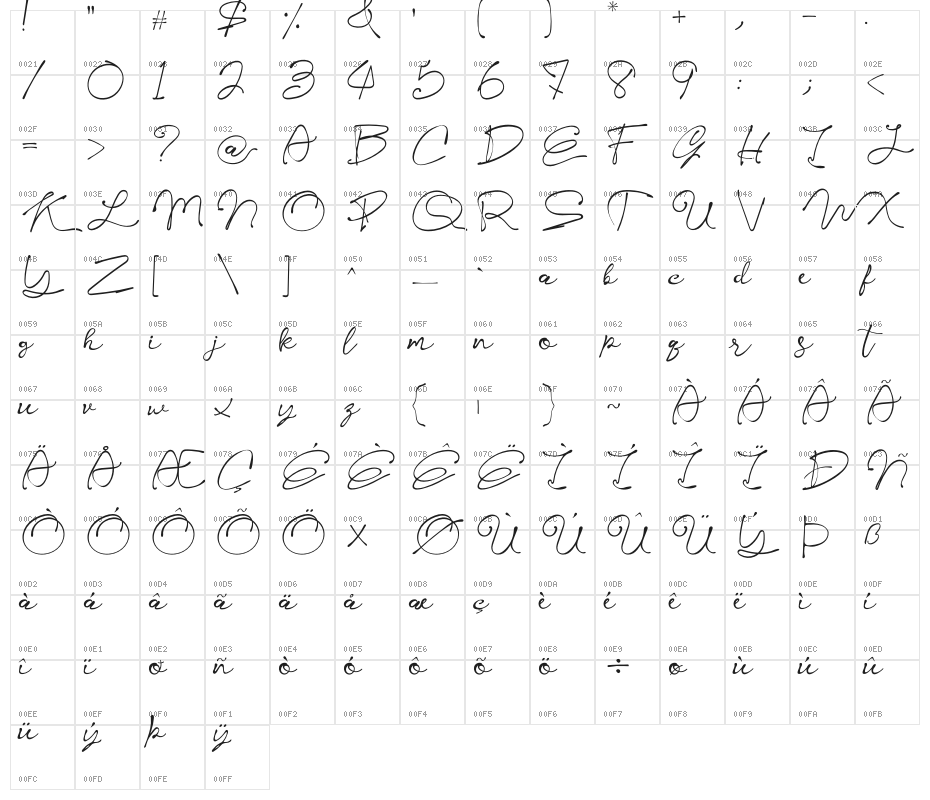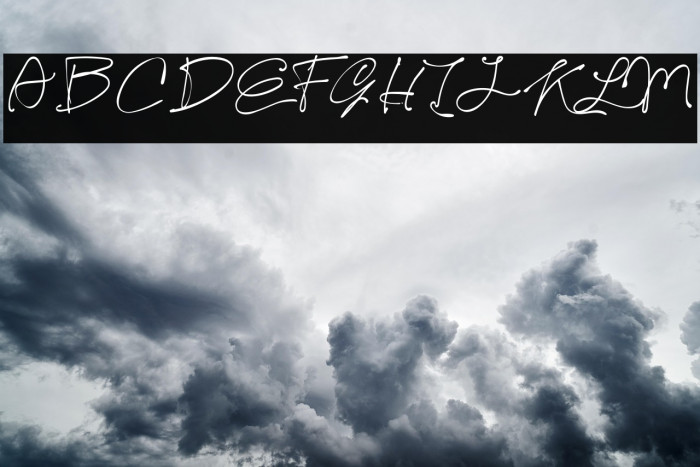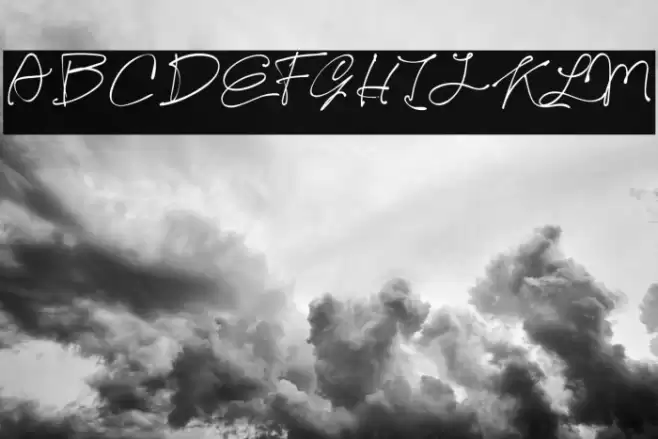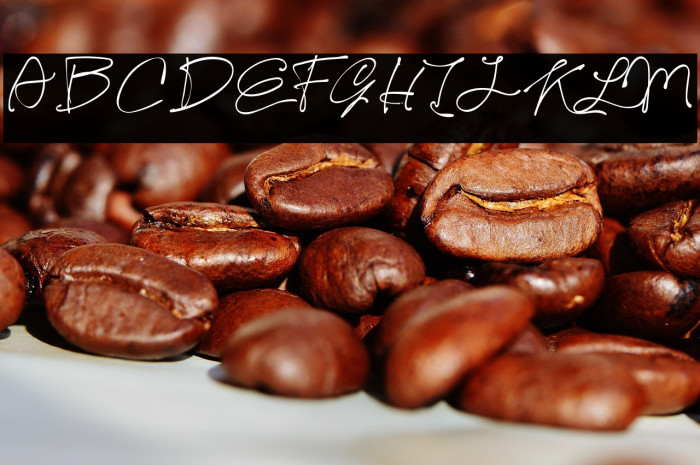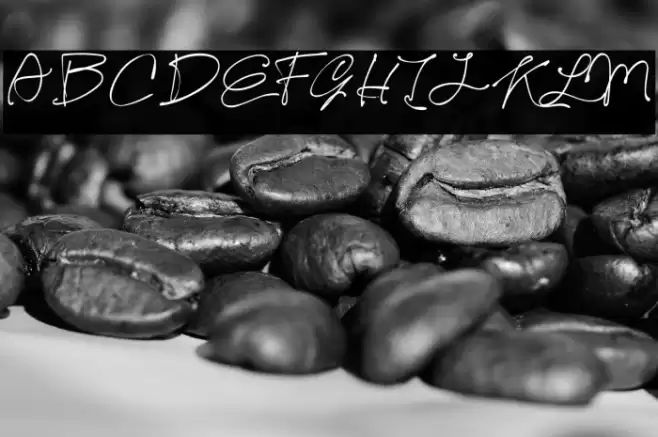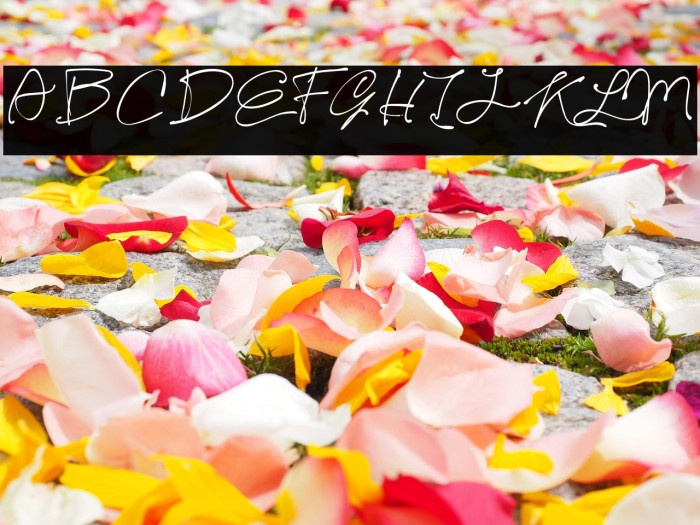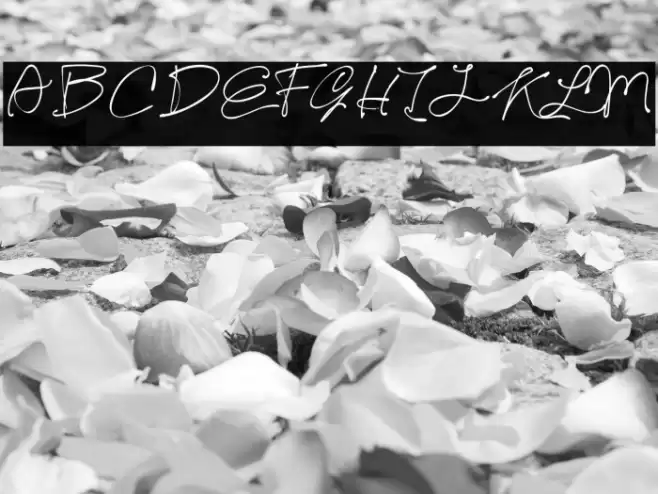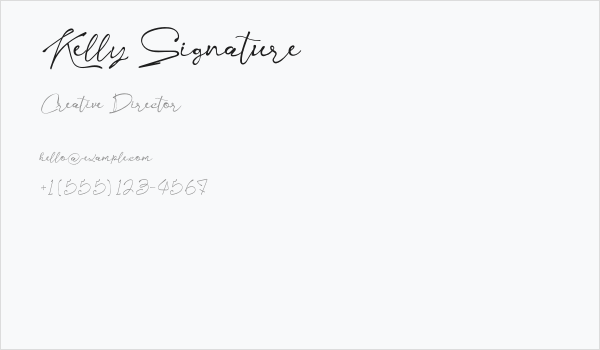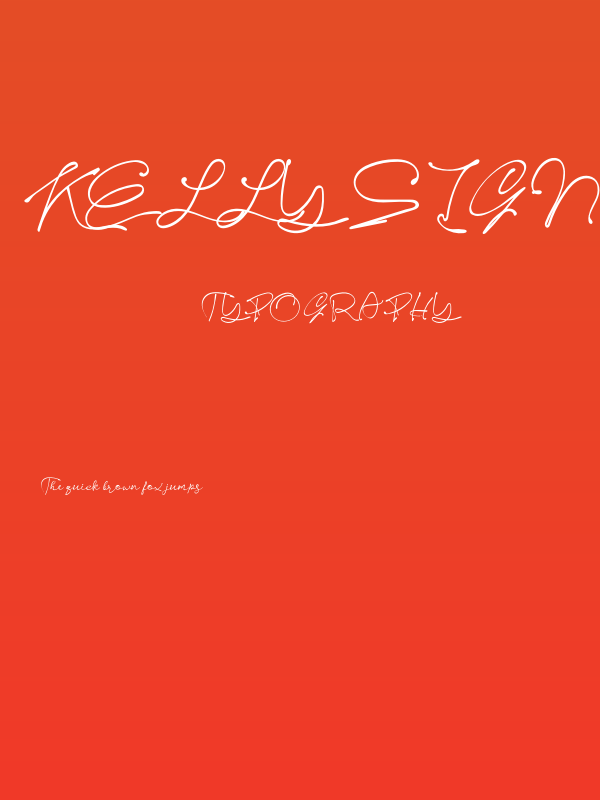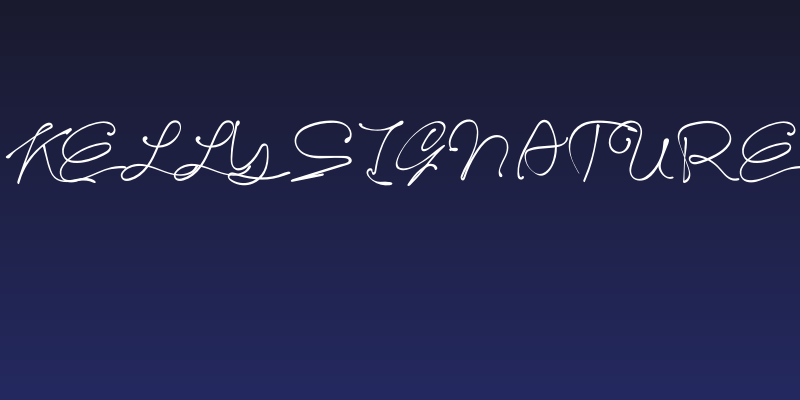
Kelly Signature Font
Kelly Signature Description
This font exudes a casual elegance with its flowing, cursive style. The letters are interconnected, giving it a handwritten, personal touch. Uppercase letters maintain a consistent height, while lowercase letters vary, adding a dynamic rhythm to the text. The numerals are distinct yet harmonize well with the alphabet, maintaining the same fluidity. Special characters are thoughtfully designed, ensuring they blend seamlessly with the overall aesthetic. The strokes are smooth and consistent, with a medium contrast that enhances readability while retaining an artistic flair.
| Overall Style | Casual, Elegant |
| Proposed Projects | Ideal for personal branding, wedding invitations, greeting cards, and creative projects that require a personal touch. |